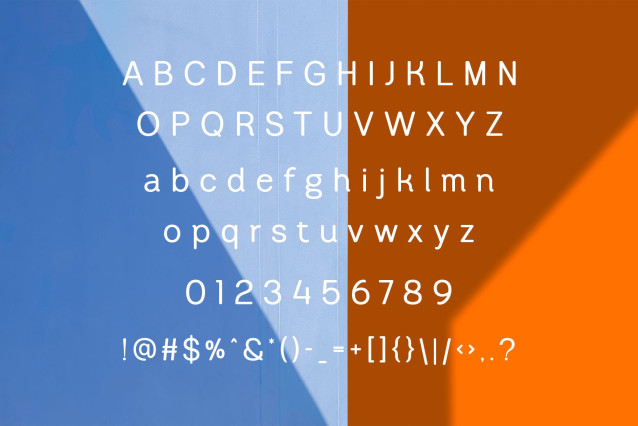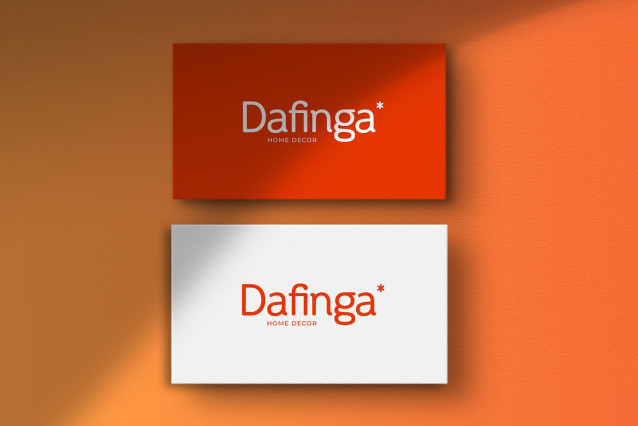
Dropline Font
Dropline Font is a modern and simple font, best used as a display for headings, logos, branding, magazines, product packaging and invitations. Dropline come with clean lines and smooth curves give any project an extra touch of class.